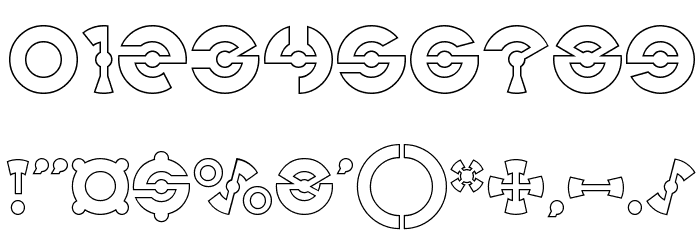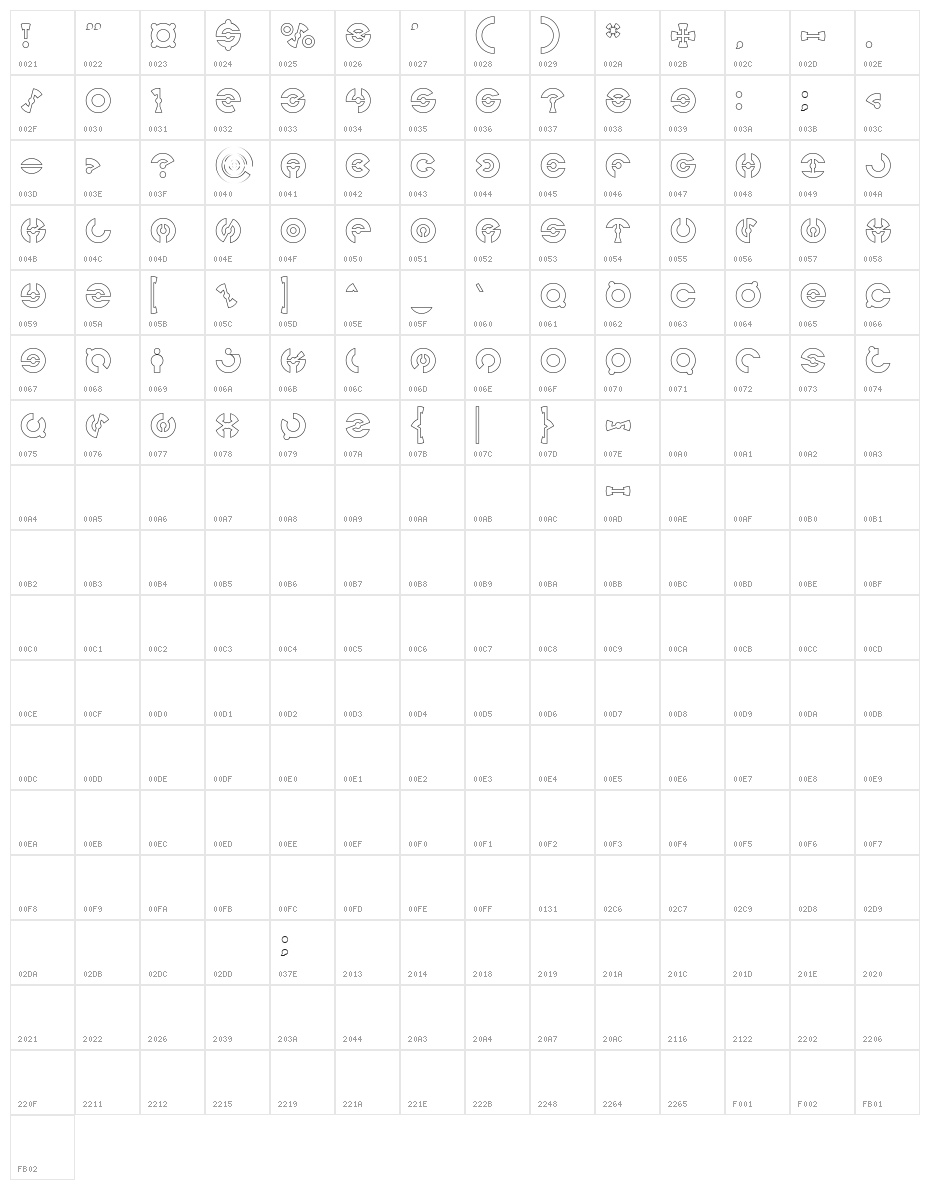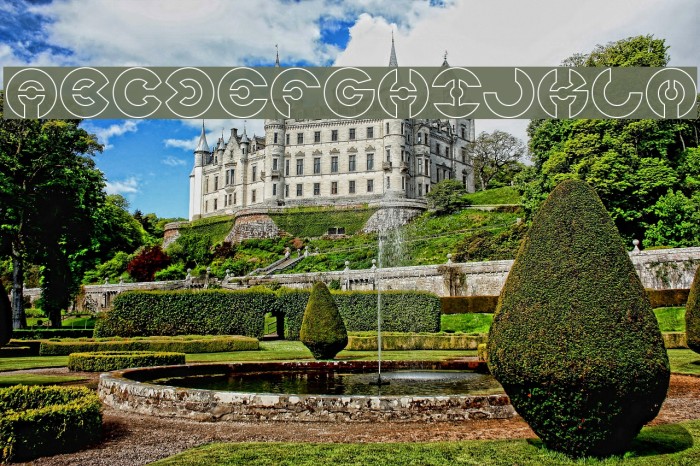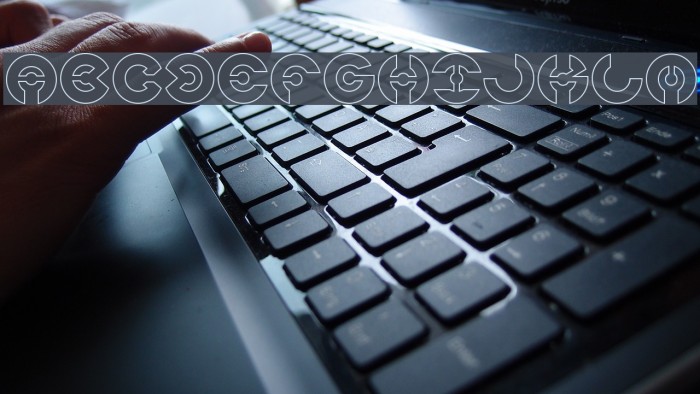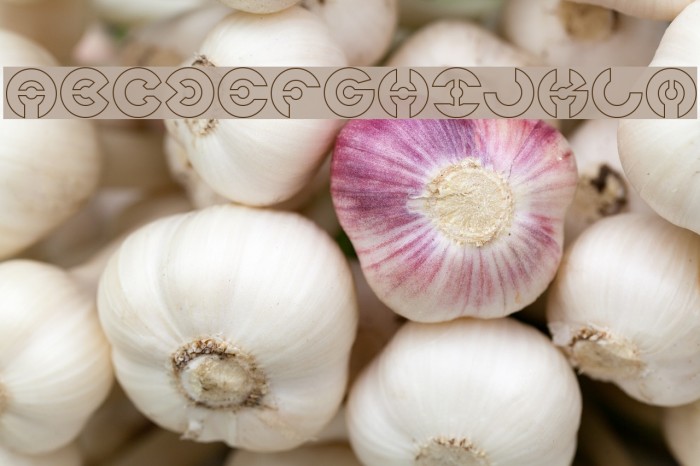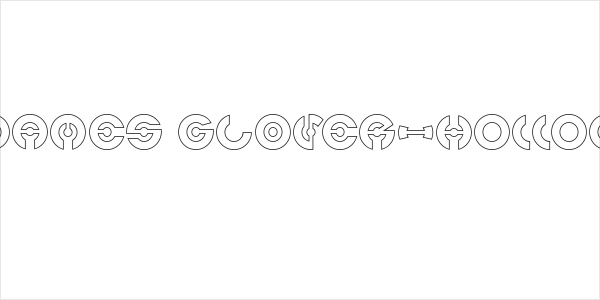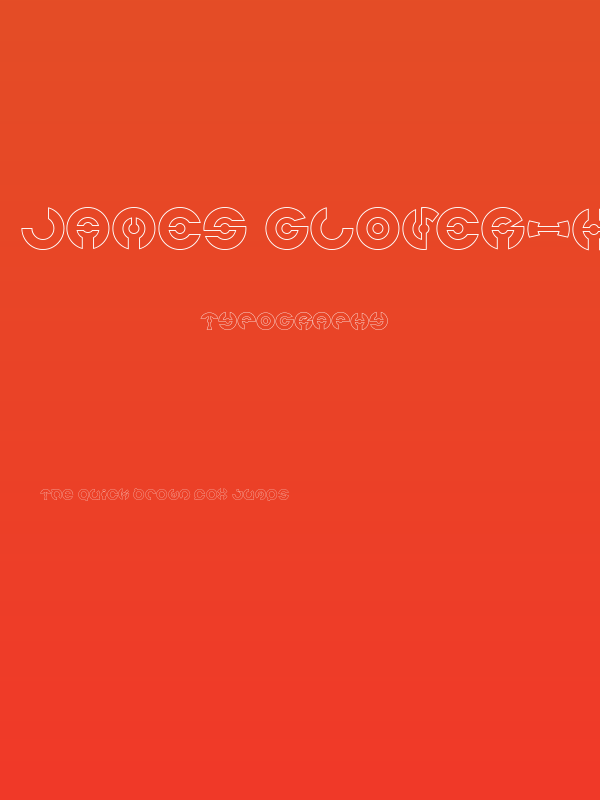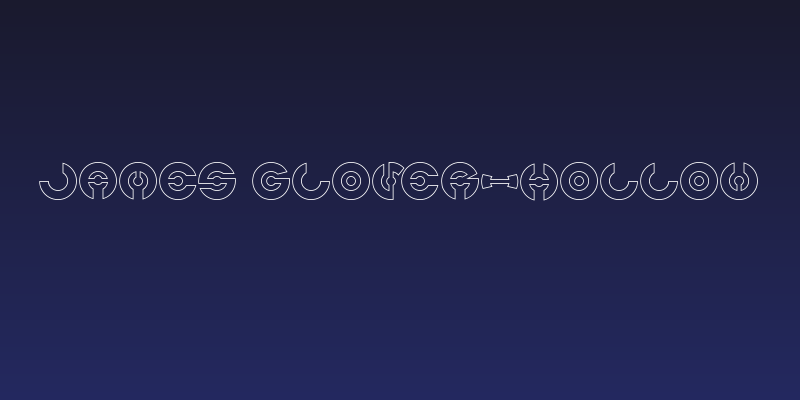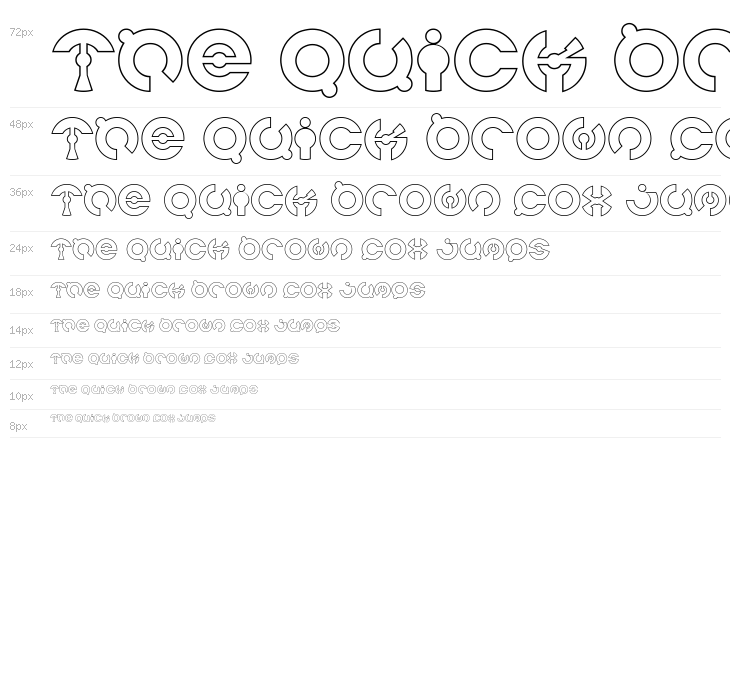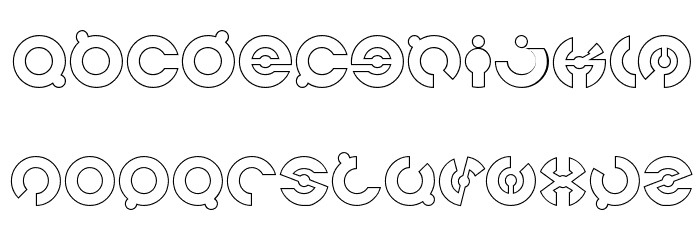
JAMES GLOVER-Hollow Font
JAMES GLOVER-Hollow Description
This font features a unique hollow design with a futuristic and geometric aesthetic. Each character is crafted with a circular motif, creating a sense of unity and cohesion across the alphabet. The letters are bold and distinct, with a playful yet structured appearance. The hollow nature of the font gives it a light and airy feel, making it suitable for creative and modern applications. The consistent use of circular elements provides a rhythmic flow, while the sharp edges add a touch of edginess. This font is ideal for projects that require a standout, eye-catching typeface.
| Proposed Projects | Ideal for sci-fi themed designs, modern logos, digital artwork, and innovative branding projects. |